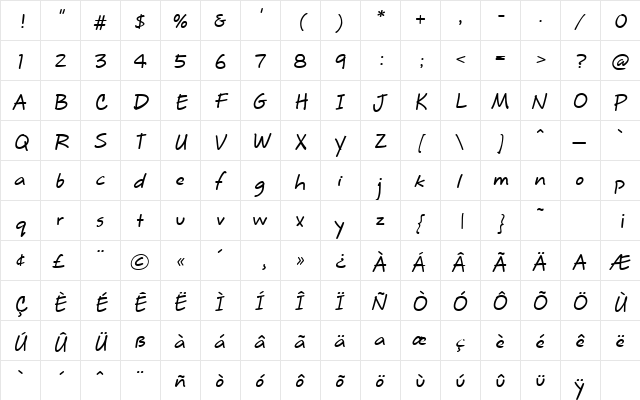
Marita Medium - HMK Regular
Marita Medium - HMK is a composed and adaptable typeface that performs quietly and consistently across a wide range of design contexts.